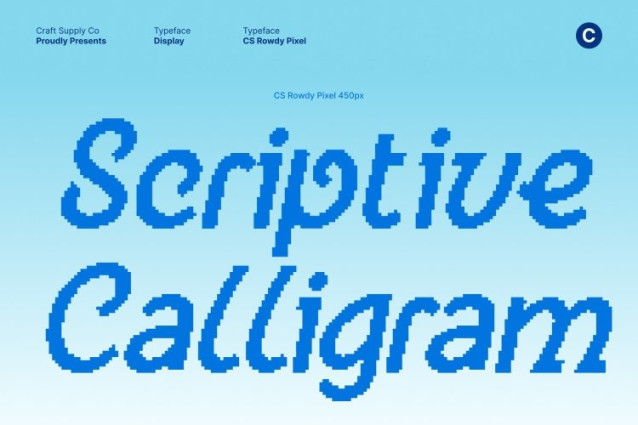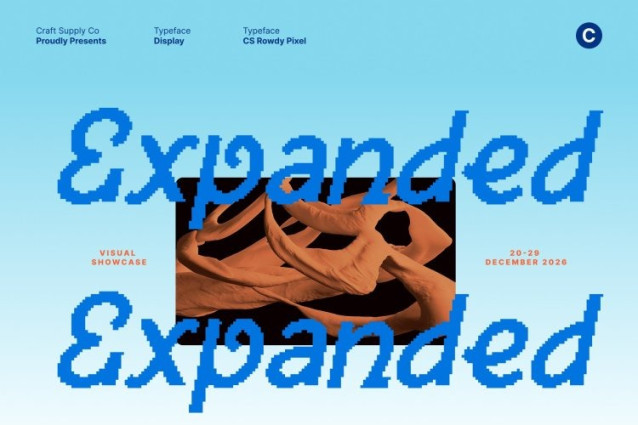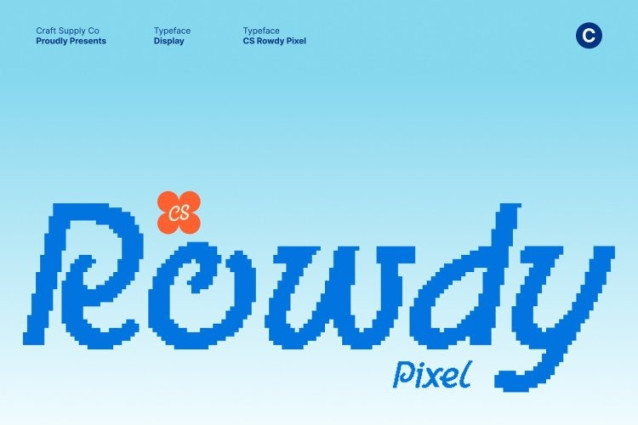
CS Rowdy Pixel Font
CS Rowdy Pixel Font This is a modern experimental sans serif font designed to radiate energy, individuality, and digital attitude. Built with bold geometric foundations and infused with pixel-inspired structure, this typeface delivers a playful yet confident presence that feels fresh, expressive, and unmistakably modern.
Distinct Pixel Letterforms for Digital Expression
Each character is uniquely sculpted with unconventional proportions and blocky pixel details, creating a dynamic rhythm that feels interactive and alive. The pixel treatment adds a retro-digital edge while reinforcing clarity and structure, transforming text into a visual statement that feels bold, fun, and innovative.
Perfect for Playful, Tech-Forward Branding
This font thrives in posters, logos, packaging, editorials, games, and digital branding where originality and impact are essential. Whether used in loud headlines or experimental layouts, it delivers a lively, engaging tone that communicates confidence, creativity, and modern playfulness.
A Typeface That Dares to Be Different
More than just a sans serif, this font celebrates experimentation and digital creativity. Its quirky pixel construction encourages designers to explore bold ideas and expressive compositions. With its fusion of playful attitude and modern structure, this font makes every design feel energetic, unconventional, and future-ready.